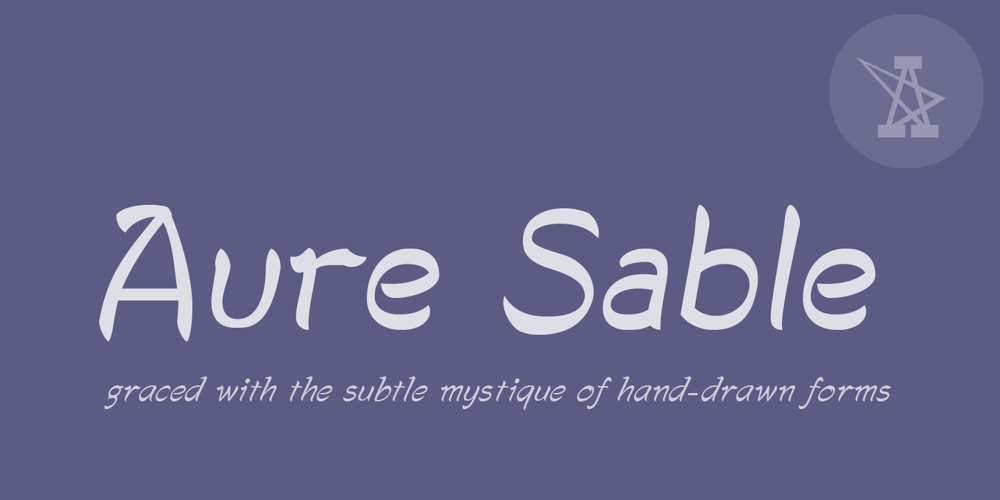
Aure Sable
Aure Sable font
Aure Sable Font Family was designed by Aurora Isaac and published by Aure Font Design. Aure Sable contains 4 styles and family package options. Aure Sable embodies the entrancing mistique of an adventurous spirit. The fluid forms of this brush font engage the reader with a subtext of serendipitious happenstance. Sable Regular brings the soft touch of familiarity to text and titles and imbues astrological expressions and chartwheels with an exotic intrigue. The graceful forms of Sable Italic add the flowing touch of a personal comunique. Sable is an original design developed by Aurora Isaac. After more than a decade in development, 2018 marks the first release of the CJ and KB glyphsets in regular and italic. The CJ glyphset is a full text font with an extended set of lowercase and uppercase glyphs supporting a variety of European languages. Additional glyphs include standard ligatures, four variations of the ampersand, and check-mark and happy-face with their companions x-mark and grumpy-face. Numbers are available in lining and oldstyle versions, with numerators and denominators for forming fractions. Companion glyphs include Roman numerals, specialized glyphs for indicating ordinals, and a variety of mathematical symbols and operators. The CJ glyphset also includes an extended set of glyphs for typesetting Western Astrology. These glyphs are also available separately in the KB glyphset: a symbol font re-coded to allow easy keyboard access for the most commonly used glyphs. Aure Sable is engaging as a text font, but its empathic nature radiates against more traditional fonts that provide the perfect foil to Sable’s casual persona. Pair Sable with the formal look of geometric fonts such as Aure Jane and Aure Declare to accentuate Sable’s heartfelt nature. Give Aure Sable a trial run! You may discover a permanent place for this font family in your typographic palette. >> AureFontDesign.com